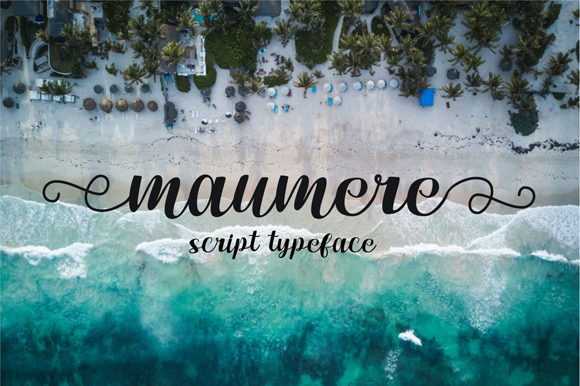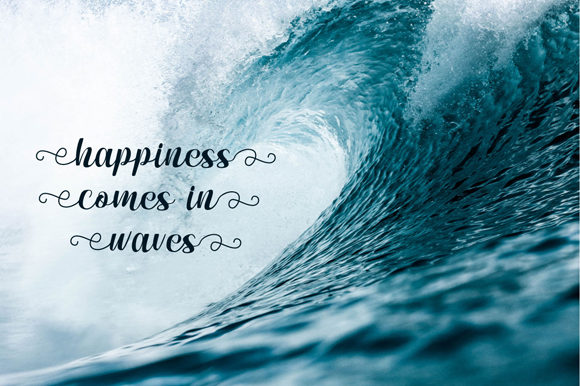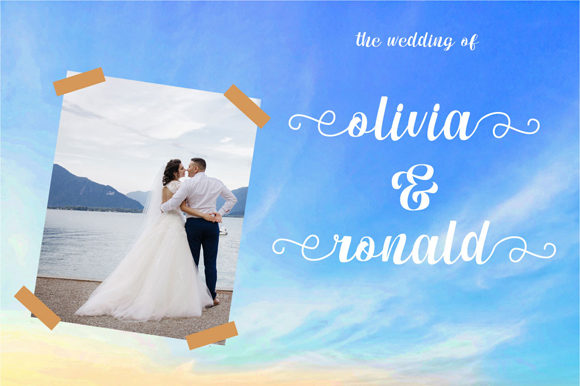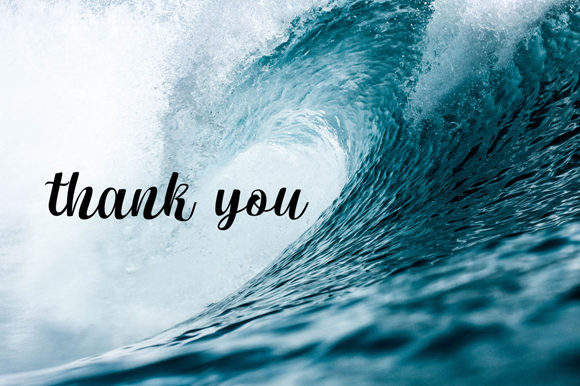
Maumere Script Font
About Maumere Script Font
The Maumere is a beautiful script font. It has amazing beginning and end swashes, which will bring an elegant style to your designs.
It’s perfect for quotes, wedding invitations, logos, and much more!